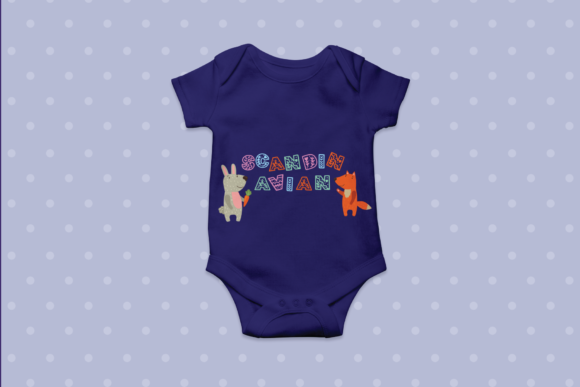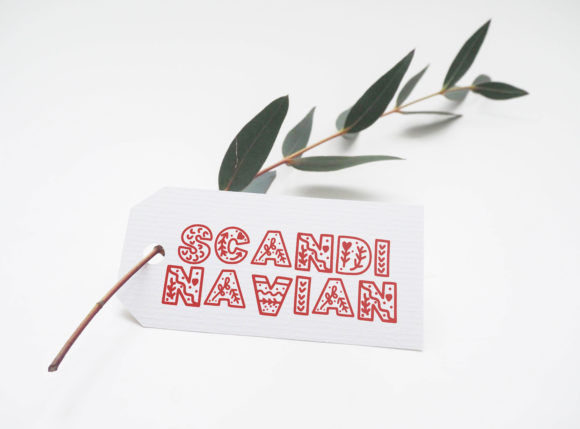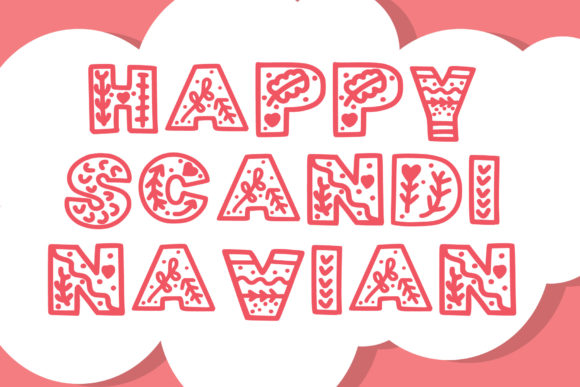
Introducing Happy Scandinavian Font: The Ultimate Choice for Fun and Friendly Designs
Are you tired of using the same old fonts for your designs? Do you want to add a touch of fun and friendliness to your projects? Look no further than Happy Scandinavian Font! This delightful display font is perfect for designers and crafters who want to create eye-catching and engaging designs that are sure to bring a smile to people’s faces.
The Characteristics of Happy Scandinavian Font
Happy Scandinavian Font is a unique and charming font that boasts thick letters, giving it a sturdy and robust feel. However, despite its bold appearance, this font is incredibly cute and jolly, making it an ideal choice for a wide range of design projects. Whether you’re working on a cartoon, magazine cover, or any other type of design, Happy Scandinavian Font is sure to add a touch of whimsy and playfulness.
What Makes Happy Scandinavian Font So Versatile?
One of the things that sets Happy Scandinavian Font apart from other fonts is its versatility. This font can be used for a wide range of design projects, from children’s books and cartoons to magazine covers and posters. Its bold and playful appearance makes it perfect for headlines, titles, and other types of display text, while its clear and legible design ensures that it can be used for body text as well.
The Benefits of Using Happy Scandinavian Font
So why should you choose Happy Scandinavian Font for your next design project? Here are just a few benefits of using this amazing font:
- Unique and eye-catching design: Happy Scandinavian Font is a one-of-a-kind font that is sure to grab people’s attention. Its bold and playful appearance makes it perfect for designs that need to stand out from the crowd.
- Versatile and flexible: This font can be used for a wide range of design projects, from children’s books to magazine covers. Its clear and legible design ensures that it can be used for both headlines and body text.
- Easily readable: Despite its bold appearance, Happy Scandinavian Font is incredibly easy to read. This makes it perfect for designs that need to communicate a message clearly and effectively.
- Fun and friendly vibe: Happy Scandinavian Font has a fun and friendly vibe that is sure to bring a smile to people’s faces. This makes it perfect for designs that need to be playful and engaging.
How to Use Happy Scandinavian Font in Your Designs
Using Happy Scandinavian Font in your designs is easy! Here are a few tips to get you started:
- Pair it with other fonts: Happy Scandinavian Font can be paired with other fonts to create a unique and eye-catching design. Try pairing it with a sans-serif font for a bold and modern look.
- Use it for headlines and titles: Happy Scandinavian Font is perfect for headlines and titles. Its bold and playful appearance makes it sure to grab people’s attention.
- Add some color: Happy Scandinavian Font looks great in a variety of colors. Try adding some bright and bold colors to your design to make it really pop.
In conclusion, Happy Scandinavian Font is a fun and friendly display font that is perfect for designers and crafters who want to create eye-catching and engaging designs. Its unique and playful appearance makes it sure to bring a smile to people’s faces, while its versatility and flexibility make it perfect for a wide range of design projects. So why not give Happy Scandinavian Font a try? With its ease of use and amazing design, it’s sure to become a favorite in your font collection.